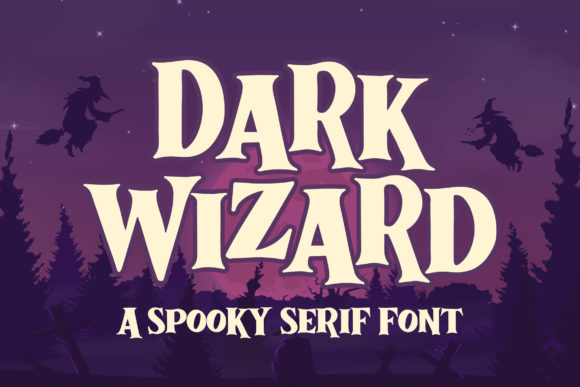
Delve into the world of Dark Wizard Font, a captivating display font that will awaken your inner designer. Inspired by the enchanting allure of horror-style typography, Dark Wizard Font grants you the power to infuse your creations with an enticing blend of creepiness and playfulness. This wickedly charming font family will cast a spell on your projects, making them irresistibly attractive and brimming with a fun-loving spirit.
Crafted with meticulous attention to detail and aesthetic appeal, Dark Wizard Font is an exceptional choice for a multitude of projects, ranging from spine-chilling Halloween themes and haunting novel covers to whimsical children's books and captivating comics. Unleash your creativity with posters that pop, packaging that captivates, merchandise that enchants, and logotypes that leave a lasting impression.
If you yearn for a font that exudes quirkiness, humor, and an artistic flair, Dark Wizard Font is your magical companion. It possesses the uncanny ability to transform ordinary designs into extraordinary masterpieces, granting them an imaginative aura that will captivate audiences of all ages.
Delve into the depths of Dark Wizard Font, and discover a font that will ignite your creativity and leave your audience spellbound. Embrace the power of this font's enchanting allure and watch as your projects come alive with an otherworldly charm.
Don't miss out on the chance to include Dark Wizard Font in your creative arsenal. Let its enchanting nature cast a spell on your designs, leaving them forever changed in its wake. Surrender to the Dark Wizard Font's allure and unlock a world of imagination and wonder.